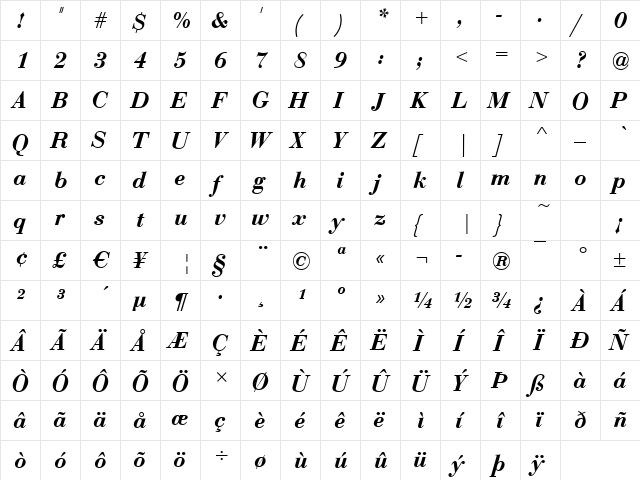
Bodoni-Demi Italic
Design Context for Bodoni-Demi Typeface
Bodoni-Demi offers clean, dependable letterforms without strong stylistic allegiance, making it a practical choice for designers who need flexibility. The slanted form adds forward momentum and visual energy.
Pro Tip: Try Bodoni-Demi for annotation and caption copy alongside an upright companion — the contrast in angle creates a dynamic but ordered typographic system.